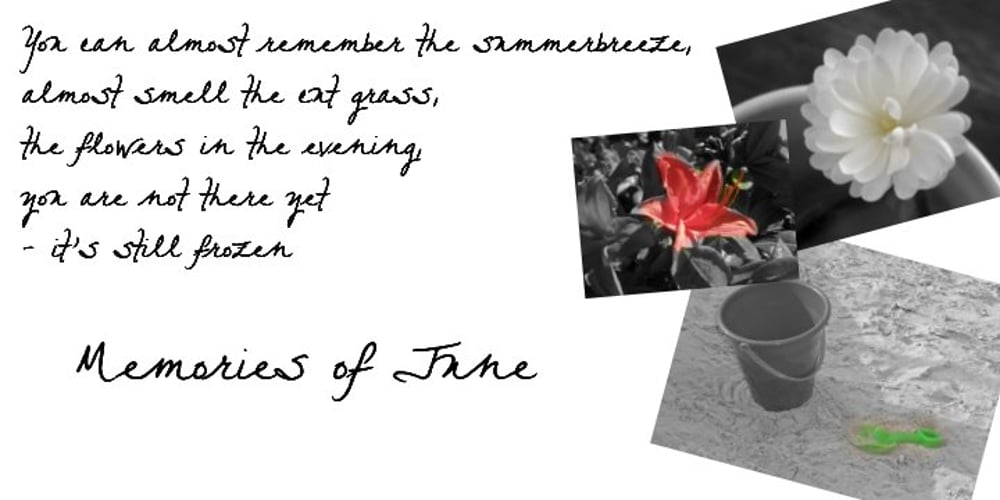
FG Audrey Font Family was designed by Ellinor Maria Rapp and published by YOFF. FG Audrey contains 2 styles and family package options. FG Audrey is a beautiful female handwriting font, that can be combined with the printed font for a more realistic handwritten effect.